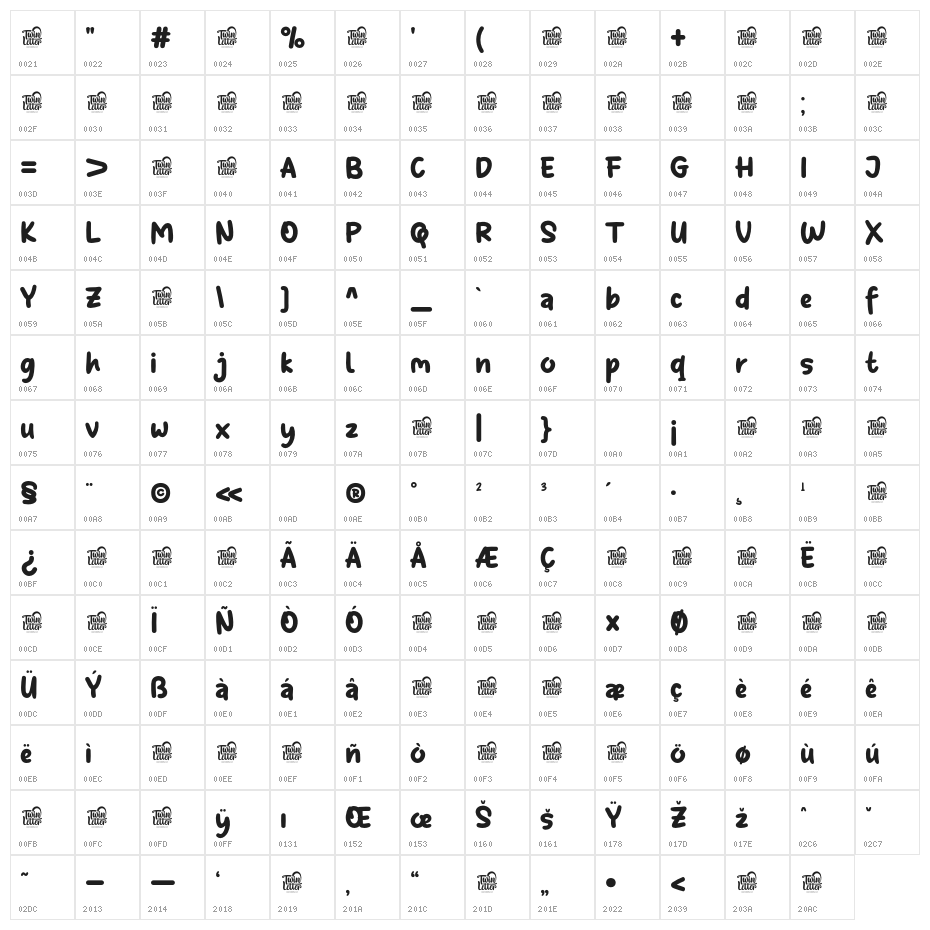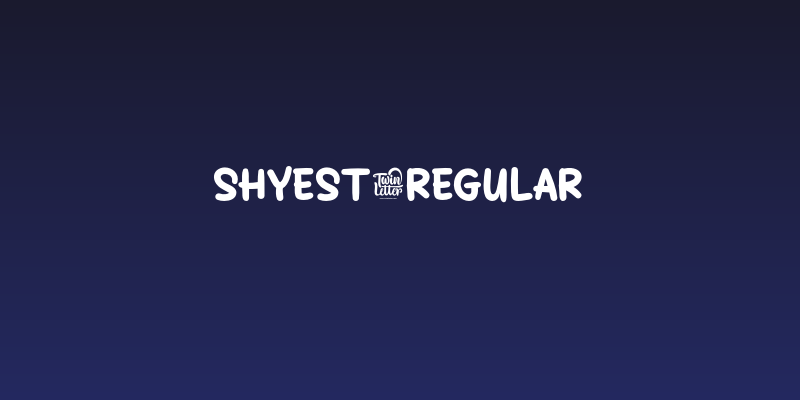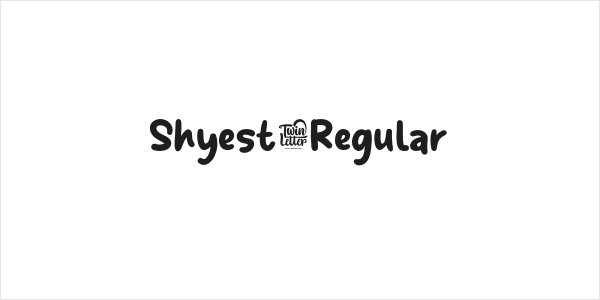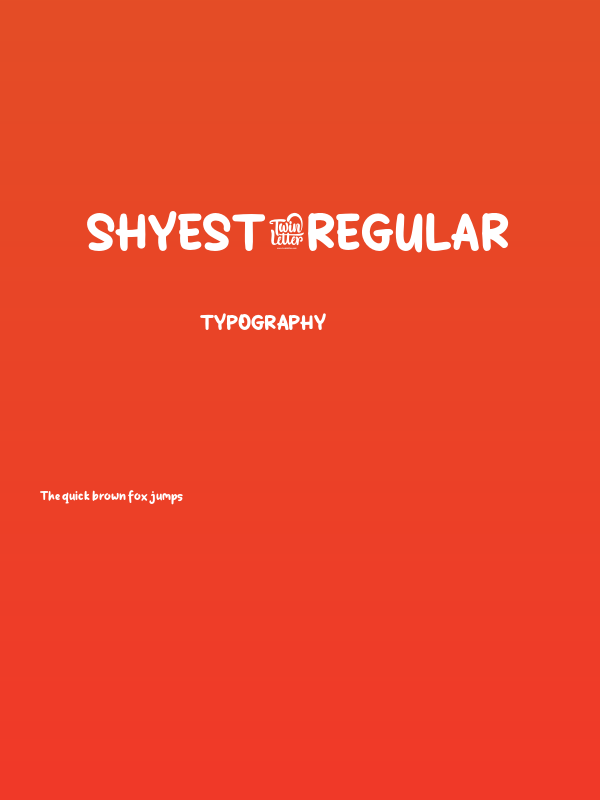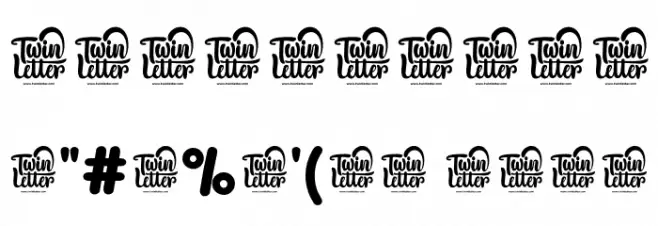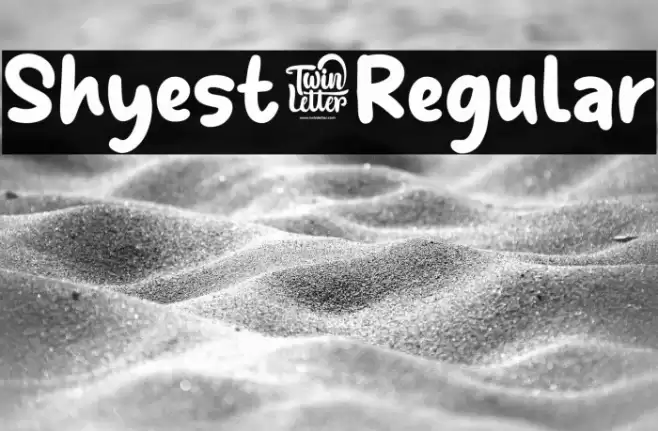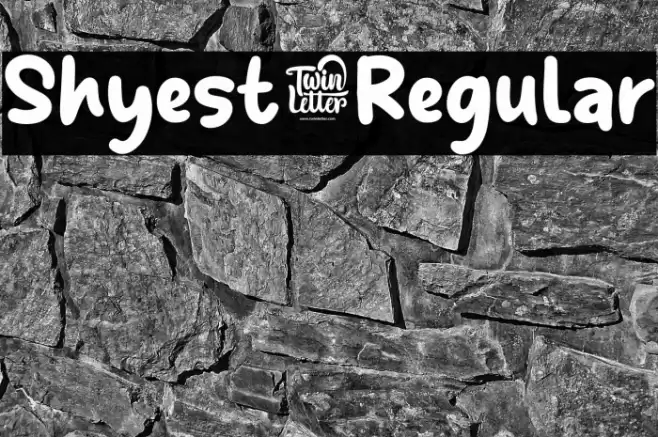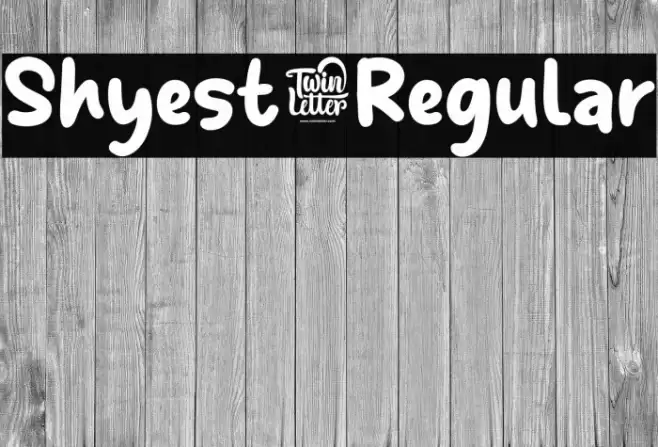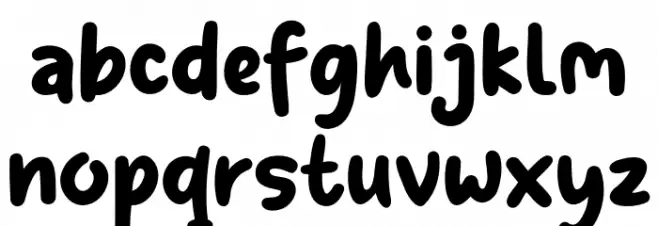
Shyest-Regular Font
Shyest-Regular Description
This font exhibits a playful and rounded style, characterized by its bold and smooth curves. Each letter has a consistent thickness, contributing to a friendly and approachable appearance. The uppercase and lowercase letters maintain a uniform height, enhancing readability. The font's whimsical nature is further emphasized by its slightly irregular shapes, giving it a hand-drawn feel. It is well-suited for projects that require a casual and informal tone, such as children's books, playful branding, or creative posters. The special characters are designed to match the overall aesthetic, ensuring a cohesive look across various applications.
| Proposed Projects | Ideal for children's books, playful branding, creative posters, and informal designs. |